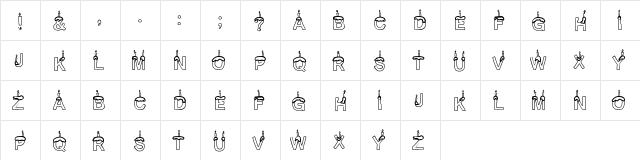
TimeToParty Medium Font Preview
TimeToParty Medium
TimeToParty Medium Font Details
Design Context for TimeToParty Typeface
TimeToParty is a composed and adaptable typeface that performs quietly and consistently across a wide range of design contexts.